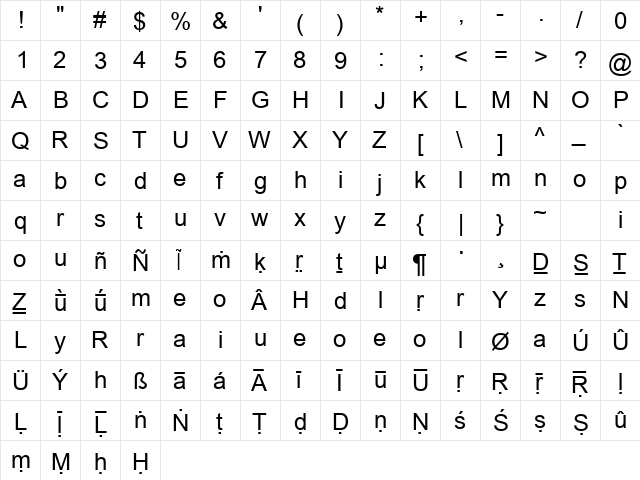
T_InProS_AR Regular
Design Context for T_InProS_AR Typeface
T_InProS_AR offers clean, dependable letterforms without strong stylistic allegiance, making it a practical choice for designers who need flexibility.